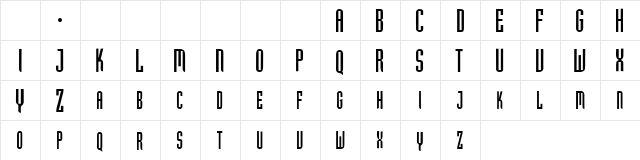
GF Hubert Caps Normal
Design Context for GF Hubert Caps
GF Hubert Caps is a composed and adaptable typeface that performs quietly and consistently across a wide range of design contexts.
Pro Tip: Use GF Hubert Caps in both headline and body roles to test its range before committing to a single application.